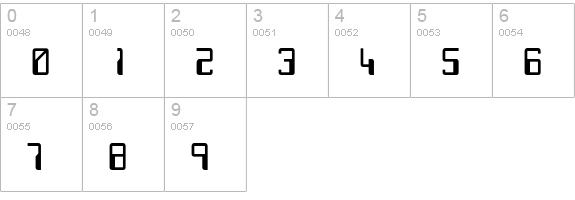
Future Font Details
Future font is a sleek and modern typeface that embodies the essence of tomorrow. With its clean lines and futuristic appeal, this font is perfect for adding a touch of innovation to any design project. Whether you're creating a tech-inspired logo, designing a cutting-edge website, or crafting a forward-thinking poster, Future font is sure to make a bold statement. The best part is that Future font is available for free! You can easily download this versatile typeface at FontsMarket.com and start using it in your projects right away. Don't miss out on the opportunity to enhance your designs with this contemporary and eye-catching font. Download Future font today and bring your creations into the future!